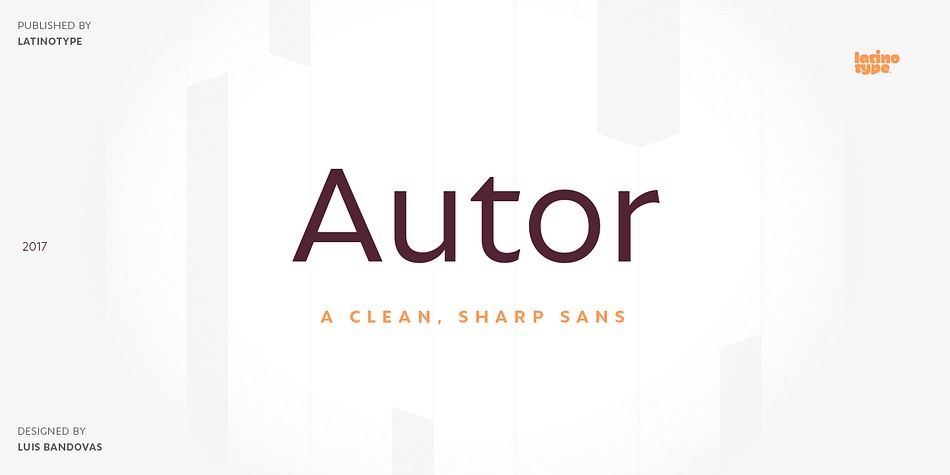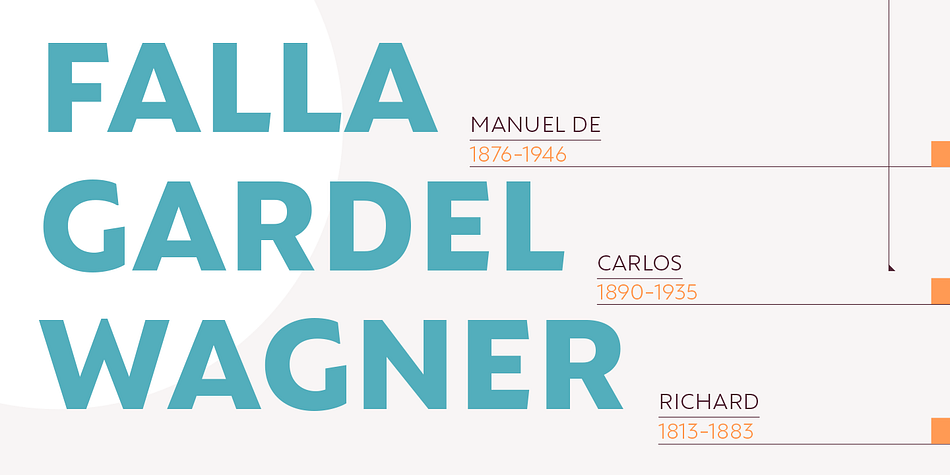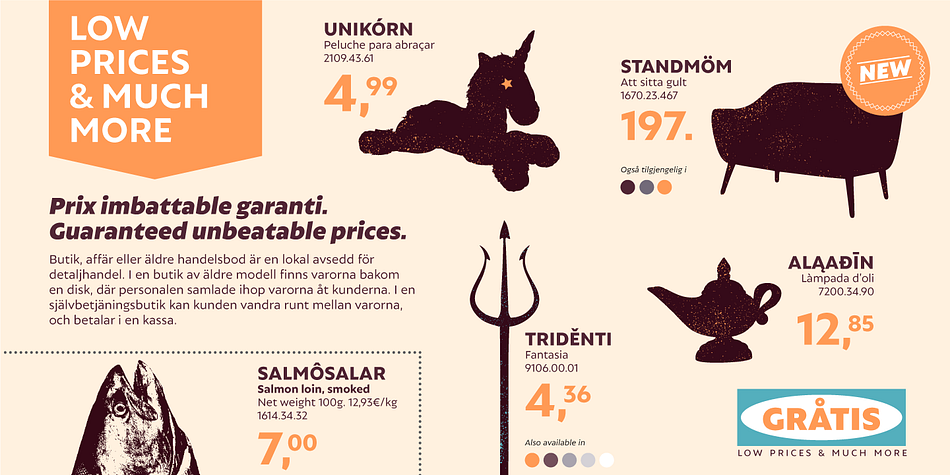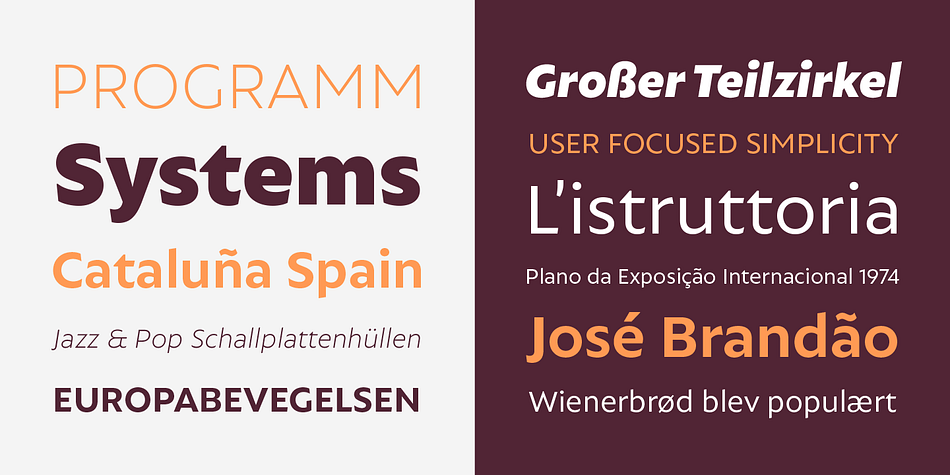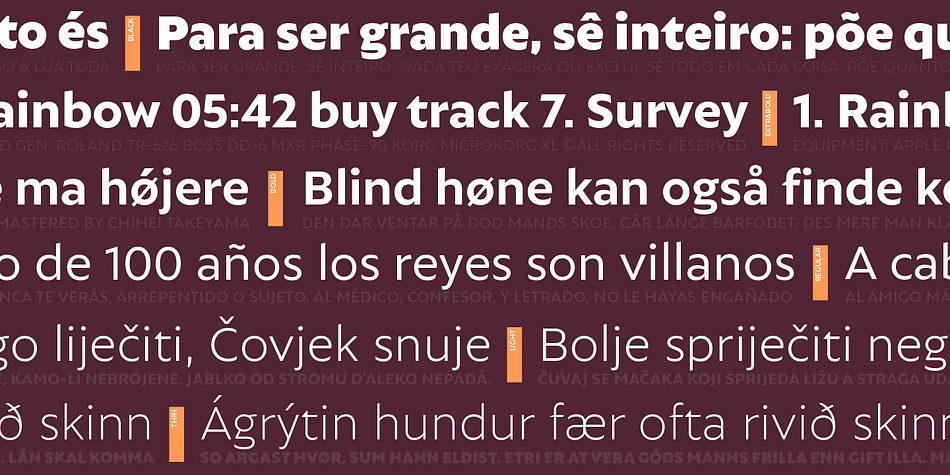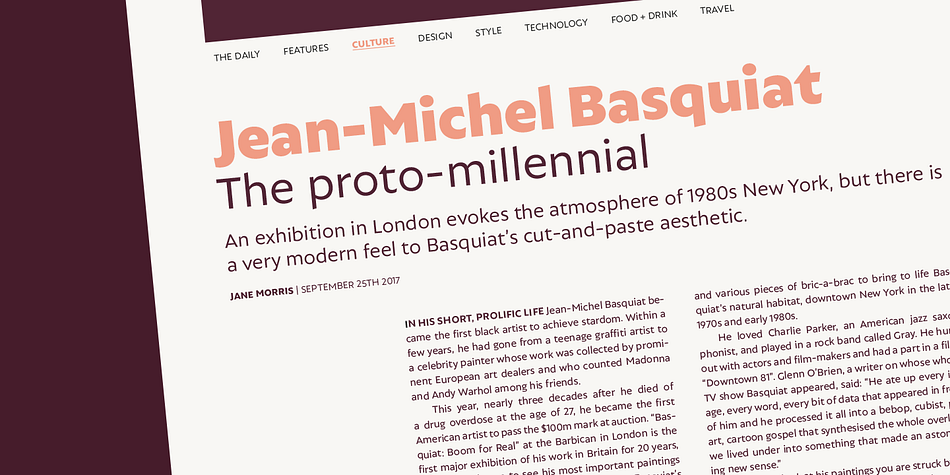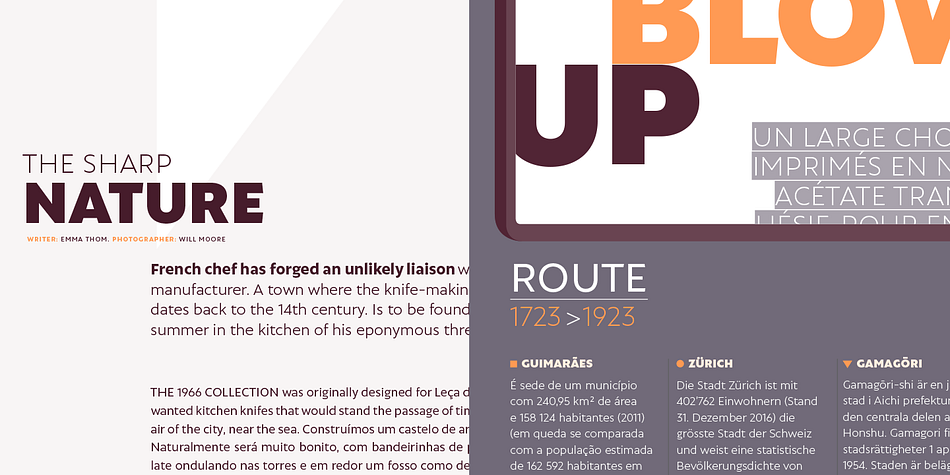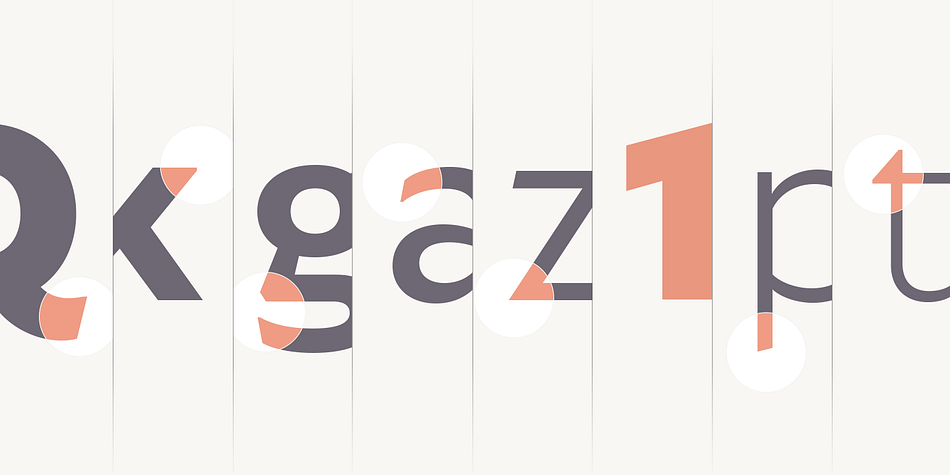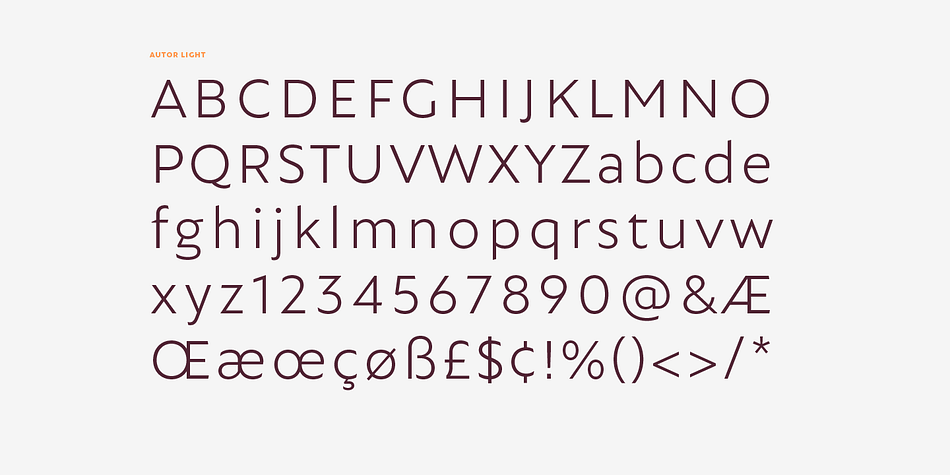
Designed by Luis Bandovas, Autor is a sans serif font family. This typeface has fourteen styles and was published by Latinotype.
Autor is a medium-contrast sans serif font with a dynamic stroke modulation. Its clean look and angled terminals give your designs a ‘sharp’ and contemporary feel.
Autor Family comes in 7 weights, ranging from Thin to Black, with matching italics, resulting in a total of 14 styles.
Autor is well-suited for editorial design, body text in books and magazines, headers and titles. It can also be used—as a display font—for logotypes, branding, advertising and publishing.
The font includes a character set containing more than 400 glyphs that support over 200 languages.